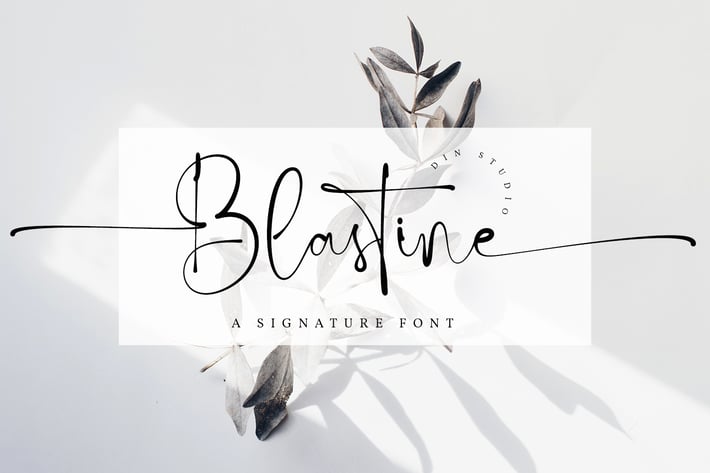
Blastine-Beautiful Signature Font
Din-Studio
Blastine is a beautiful signature font. It brings a modern and attractive typeface. Made for any professional project branding. It is the best for logos, branding, wedding and quotes.
- Stylistic Set
- Many Swashes
- Beautiful Ligatures
- Numerals and Punctuation